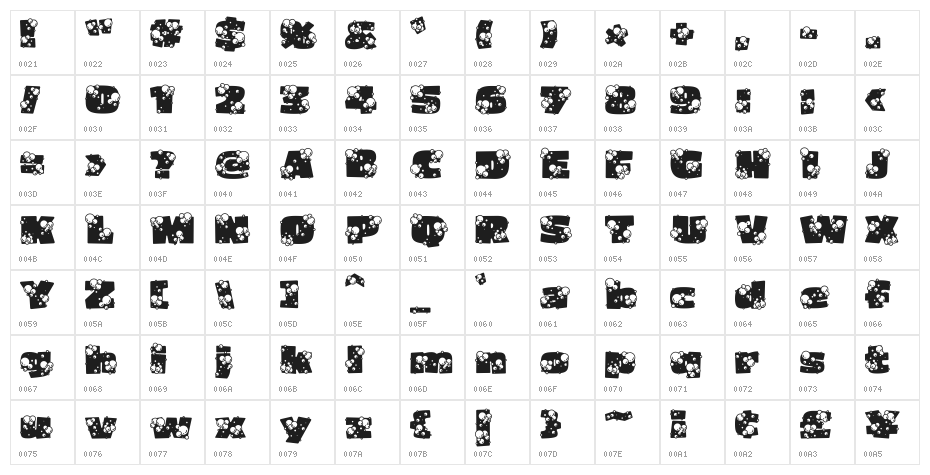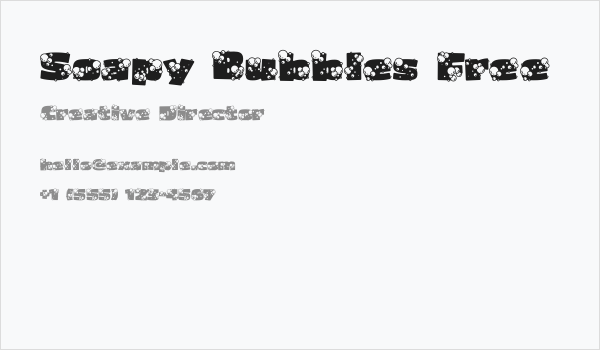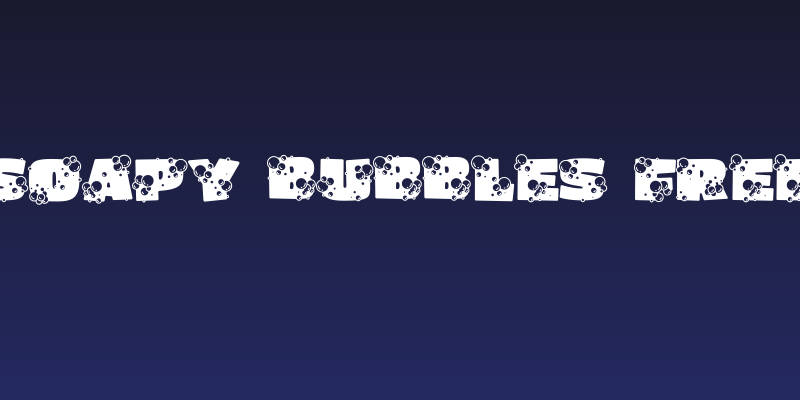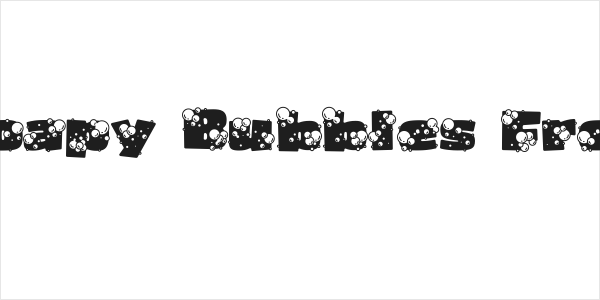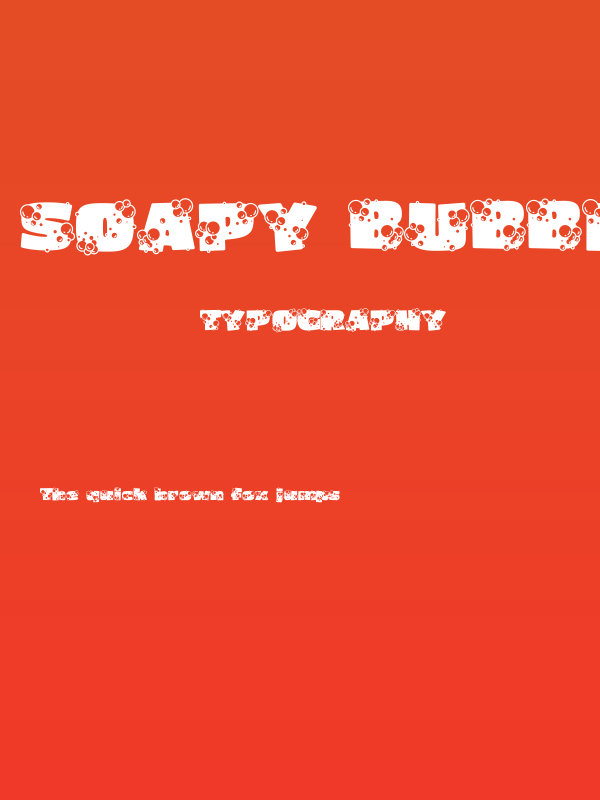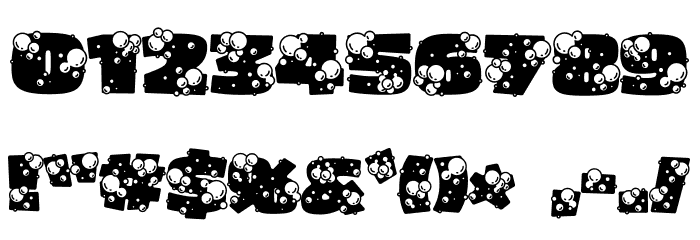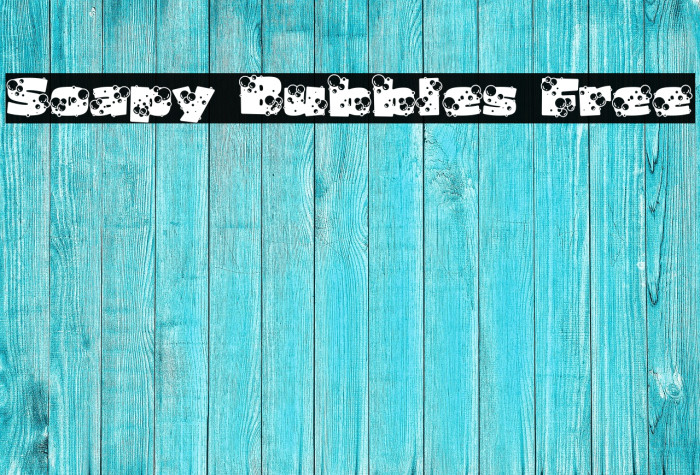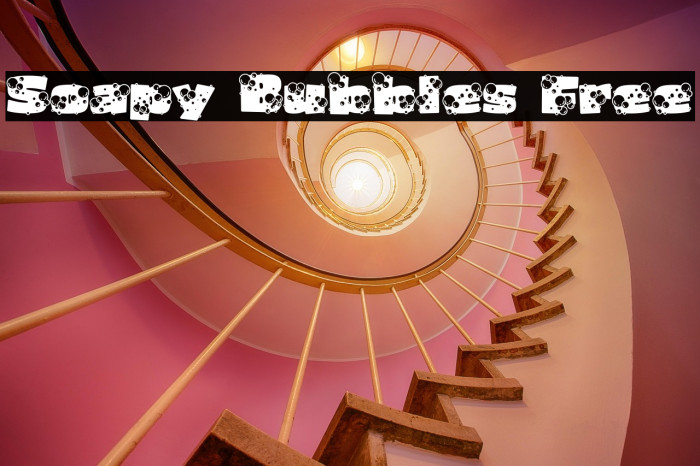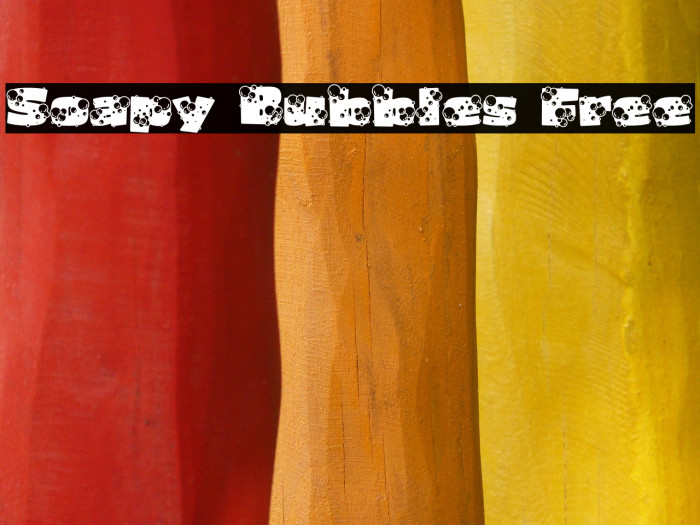
Soapy Bubbles Free Font
Soapy Bubbles Free Description
This playful and whimsical font features bold, rounded characters filled with bubble-like circles, creating a fun and lively appearance. The letters are uniformly black with white bubble accents, giving a sense of movement and lightness. Each character is distinct yet cohesive, maintaining a consistent bubbly theme throughout the alphabet, numbers, and special characters. The font's unique style makes it stand out, perfect for projects that require a touch of humor and creativity. Its decorative nature is ideal for eye-catching designs.
| Overall Style | Playful, Whimsical, Decorative |
| Proposed Projects | Ideal for children's book covers, party invitations, playful branding, and creative posters. |